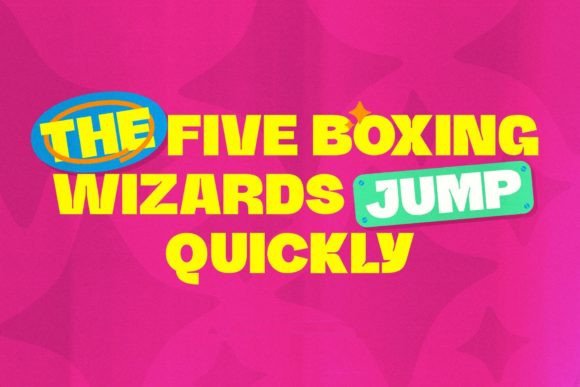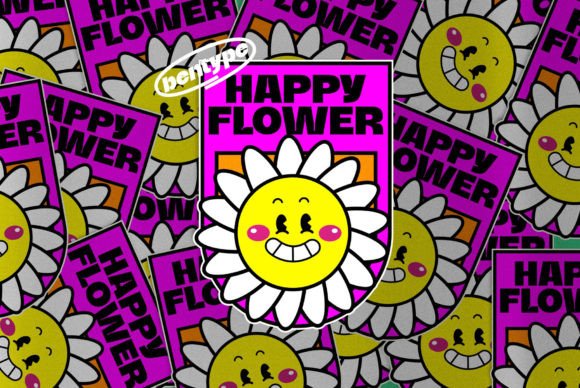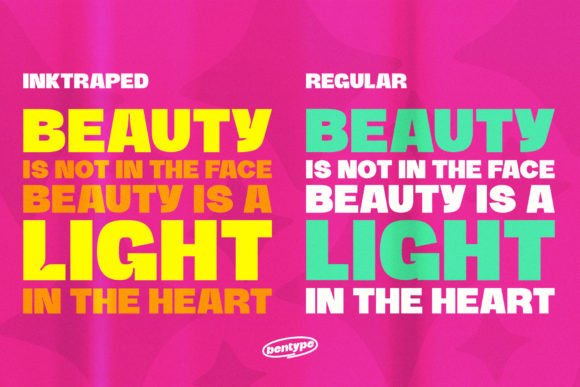
Introduction to Dangsik Font
Remember the thrill of scrolling through design inspiration boards, feeling the rush of creativity as you stumble upon the perfect font to elevate your project? That’s exactly what happened to me when I discovered the Dangsik Font – a stunning display font that instantly caught my eye. Its bold, modern structure and intricate ink-trapped details make it a game-changer for designers seeking to add a touch of sophistication to their creative projects.
As a valuable design resource, the Dangsik Font offers endless possibilities for designers looking to create high-quality visual identities, from book covers to brand logos. Its versatility and modern aesthetic make it an ideal choice for designers who want to stay ahead of the curve. With its transparent background and sleek design, the Dangsik Font is perfect for designers who crave a free download that exudes creativity and style.
Key Features of Dangsik Font
- High-quality design resource suitable for various creative projects
- Unique, modern design with a transparent background
- Perfect for designers and artists seeking a distinctive, high-quality design element
Honest Review: Dangsik Font
I recently had the chance to work with the Dangsik Font, and I must say it’s been a great addition to my design resource library. This high-quality font is perfect for any creative project that needs a unique touch.
One of the things I love about the Dangsik Font is its clean and minimalist design. It’s perfect for using on a transparent background, allowing the text to really stand out. The font is also highly customizable, making it a great choice for designers who want to add a personal touch to their work.
- Perfect for transparent backgrounds
- Highly customizable
- Not suitable for very large text sizes
Overall, I’m really impressed with the Dangsik Font. It’s a great design resource that’s perfect for any creative project. With its high-quality design and customizable options, it’s a great choice for designers who want to add a unique touch to their work.
Dangsik Font is a high-quality design resource ideal for creative projects. Its unique style and versatility make it a perfect addition to any design project.
Use the Dangsik Font with a transparent background to create a clean and modern design. Experiment with different font sizes and colors to achieve the desired effect.
The Dangsik Font is ideal for use in logos, business cards, brochures, and other marketing materials. Its unique style and high quality make it a perfect choice for creative projects.